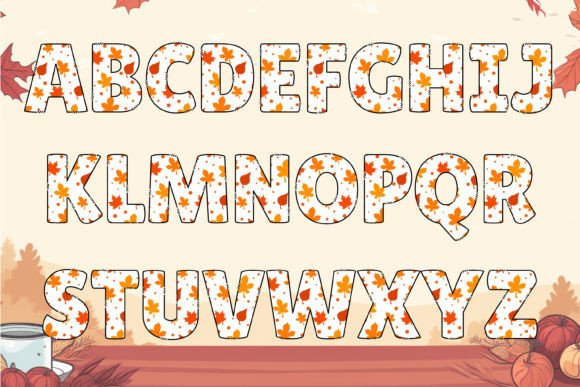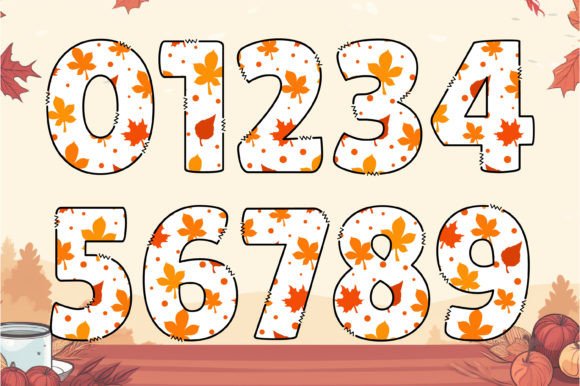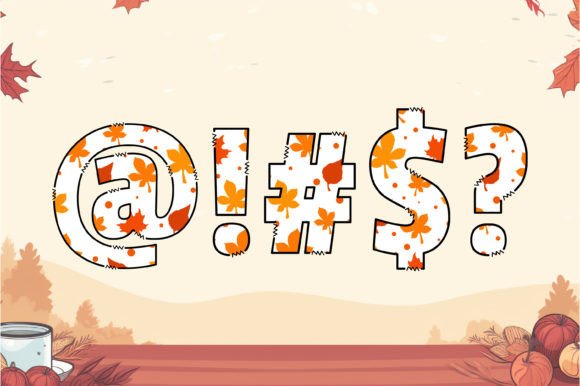
Fall Leaves Font: Add a Pop of Color to Your Creative Projects
As the seasons change and autumn arrives, we can’t help but feel inspired by the vibrant colors of fall. From the warm oranges and reds to the deep yellows and browns, the palette of fall is one of the most beautiful and evocative of the year. For designers and crafters, the fall season offers a wealth of creative possibilities, and one of the most exciting and versatile tools to add to your toolkit is the Fall Leaves Font.
What is Fall Leaves Font?
Fall Leaves is a fun and bright color font that captures the essence of the autumn season. With its bold, playful lettering and vibrant colors, this font is perfect for adding a pop of personality to your creative projects. Whether you’re designing a seasonal greeting card, crafting a fall-themed party invitation, or simply looking for a fun and eye-catching way to add some autumnal flair to your digital or print projects, Fall Leaves Font is the perfect choice.
Key Features of Fall Leaves Font
- Bright and Bold Colors: Fall Leaves Font features a range of bright, bold colors that evoke the vibrant hues of the autumn season.
- Playful Lettering: The font’s playful lettering is perfect for adding a touch of whimsy and personality to your projects.
- Versatile: This font is perfect for a wide range of creative projects, from digital designs to print materials.
Why Use Fall Leaves Font?
So why should you choose Fall Leaves Font for your creative projects? Here are just a few reasons:
- Add a Pop of Color: Fall Leaves Font is the perfect way to add a pop of color to your projects and make them stand out.
- Create a Seasonal Feel: The font’s autumnal colors and playful lettering are guaranteed to create a seasonal feel that will resonate with your audience.
- Stand Out from the Crowd: With its unique and eye-catching design, Fall Leaves Font is the perfect way to differentiate your projects from the competition.
- Easy to Pair with Other Fonts: This font pairs perfectly with a wide range of other fonts, making it easy to create a cohesive and visually appealing design.
Ideas for Using Fall Leaves Font
So, how can you use Fall Leaves Font in your creative projects? Here are a few ideas to get you started:
- Seasonal Greeting Cards: Use Fall Leaves Font to create beautiful and eye-catching seasonal greeting cards that will delight your friends and family.
- Fall-Themed Party Invitations: Create fun and festive party invitations that set the tone for a memorable and enjoyable event.
- Autumnal Digital Designs: Add a touch of autumnal flair to your digital designs, from social media graphics to blog posts and more.
- Print Materials: Use Fall Leaves Font to create eye-catching print materials, such as flyers, brochures, and posters.
| Font Name | Fall Leaves Font |
| Author | Veil |
In conclusion, Fall Leaves Font is a fun and bright color font that is perfect for adding a pop of personality to your creative projects. With its bold, playful lettering and vibrant colors, this font is guaranteed to make your projects stand out. Whether you’re a designer or crafter, Fall Leaves Font is a versatile and easy-to-use tool that is sure to become a favorite in your toolkit. So why wait? Add Fall Leaves Font to your creative projects today and see the amazing results for yourself!